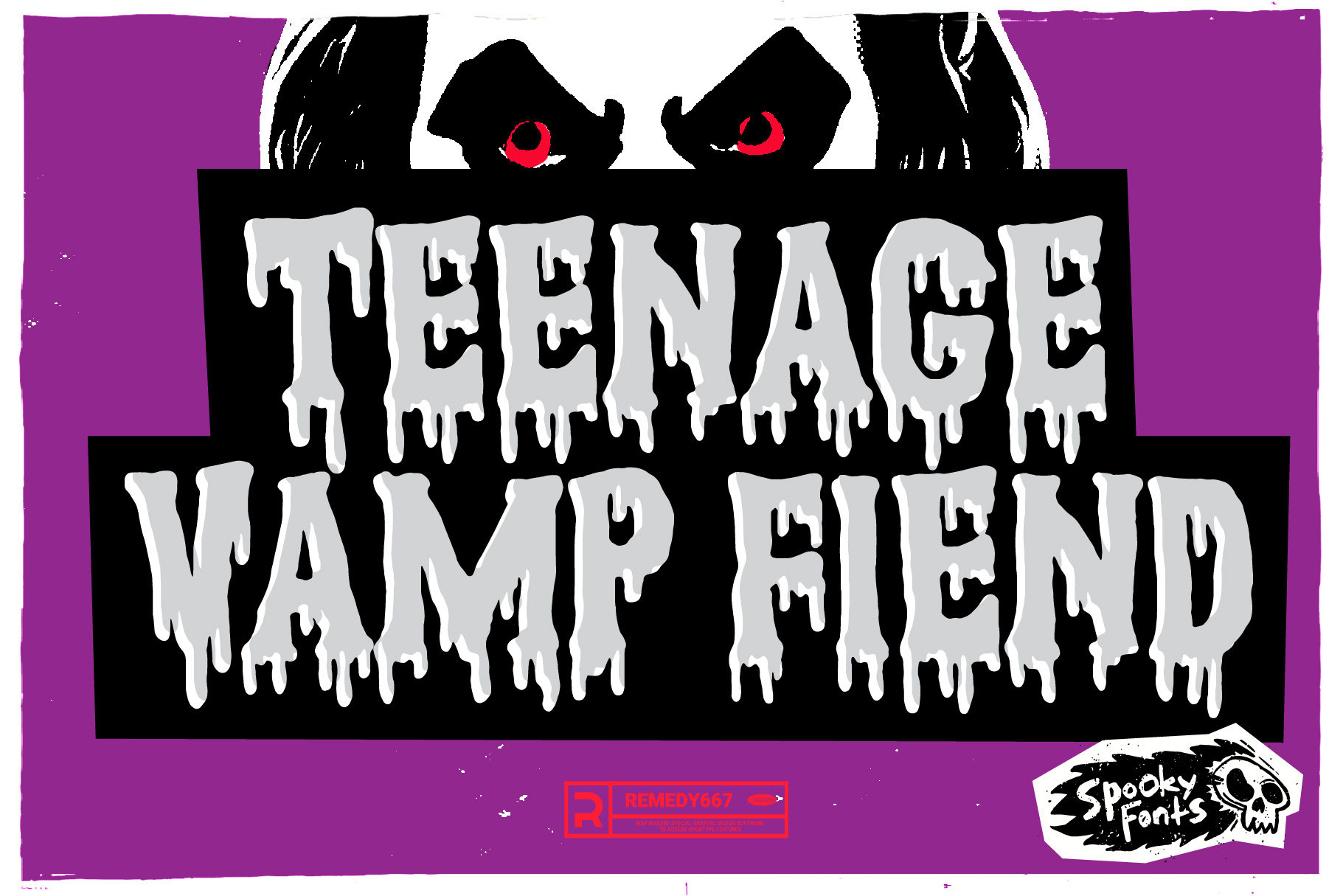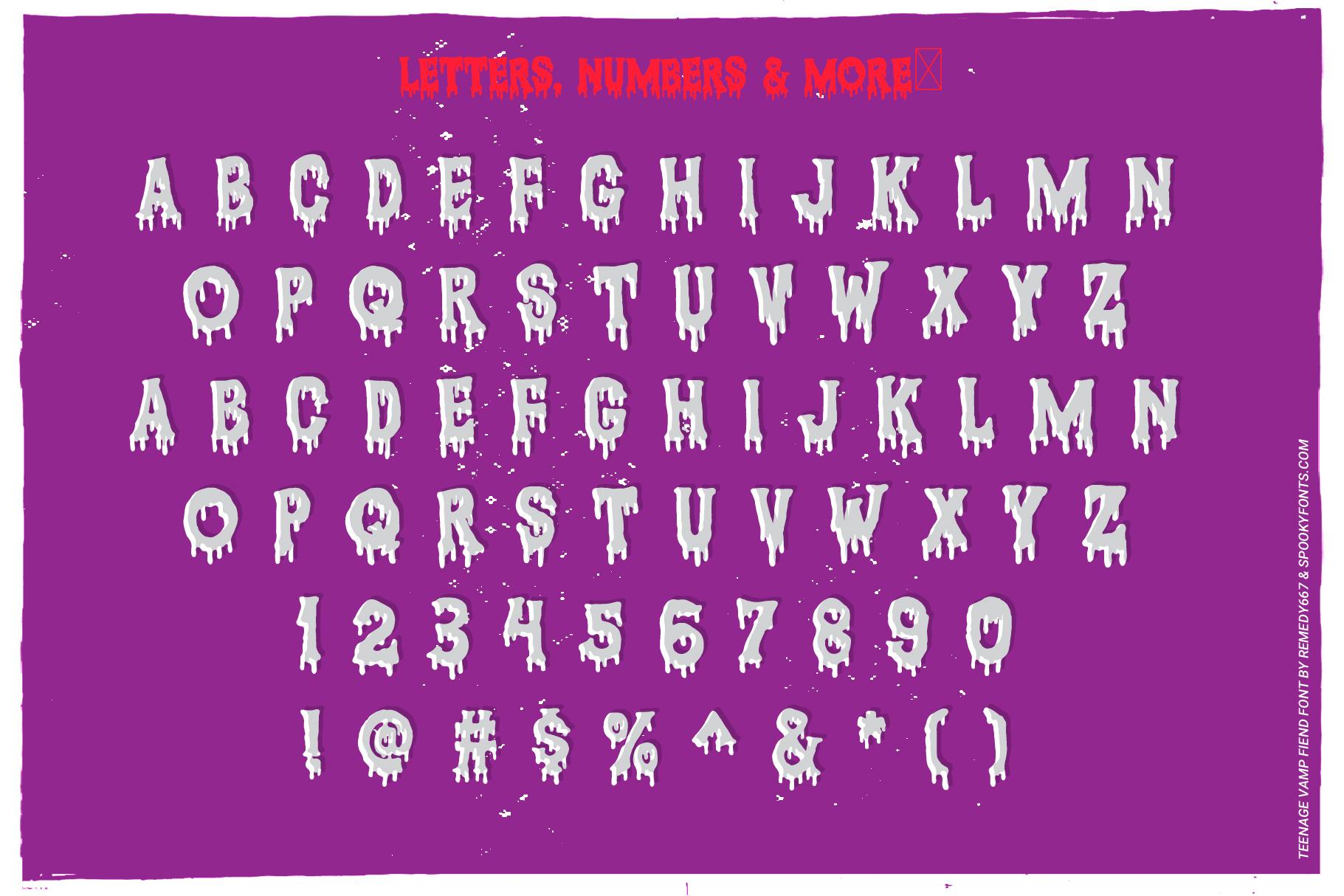
Teenage Vamp Fiend
A horror-inspired typeface dripping with style, ideal for all your vampire-related designs!
Teenage Vamp Fiend—a horror-inspired typeface dripping with style, ideal for all your vampire-related designs! This unique font is finely crafted to create a spooky aura. For all of your vampire needs, this font is perfect for creating spooky titles and text. Its bold characters will bring a sense of dread and unease to any text that you add it too. Create eerie messages that will send shivers down anyone’s spine with Teenage Vamp Fiend.
- Uppercase Character Set A-Z with Alternates
- Letters, Numerals & Simple Punctuation